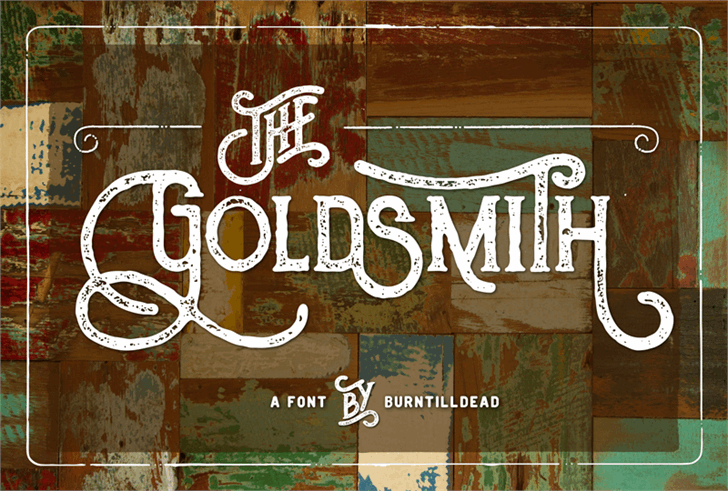
The Goldsmith Vintage font
The Goldsmith Vintage font — Created in 2015 by burntilldead
The Goldsmith is hand made modern serif font. Based on ink textured, Each glyph made manually one by one with very diligent and consistency.